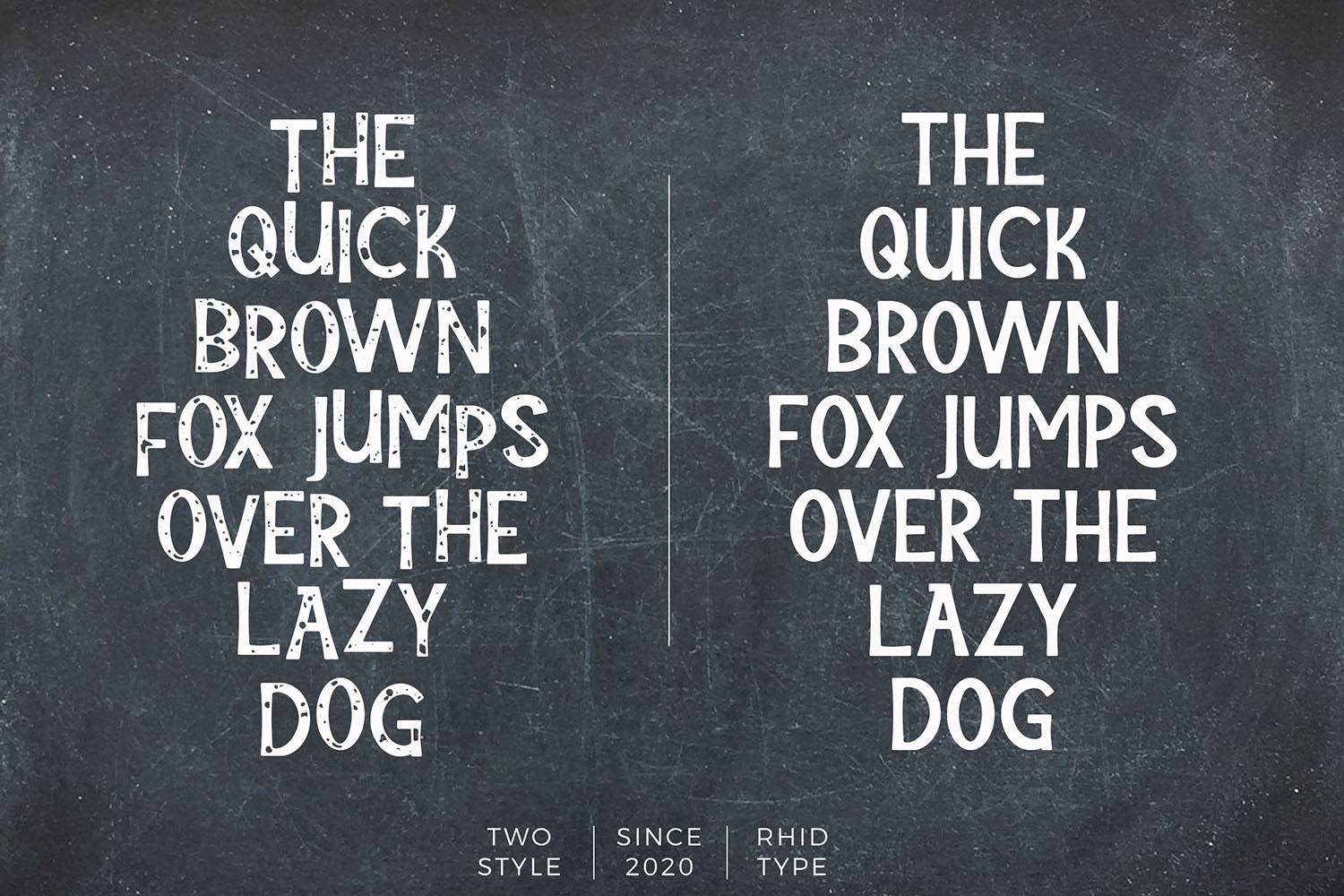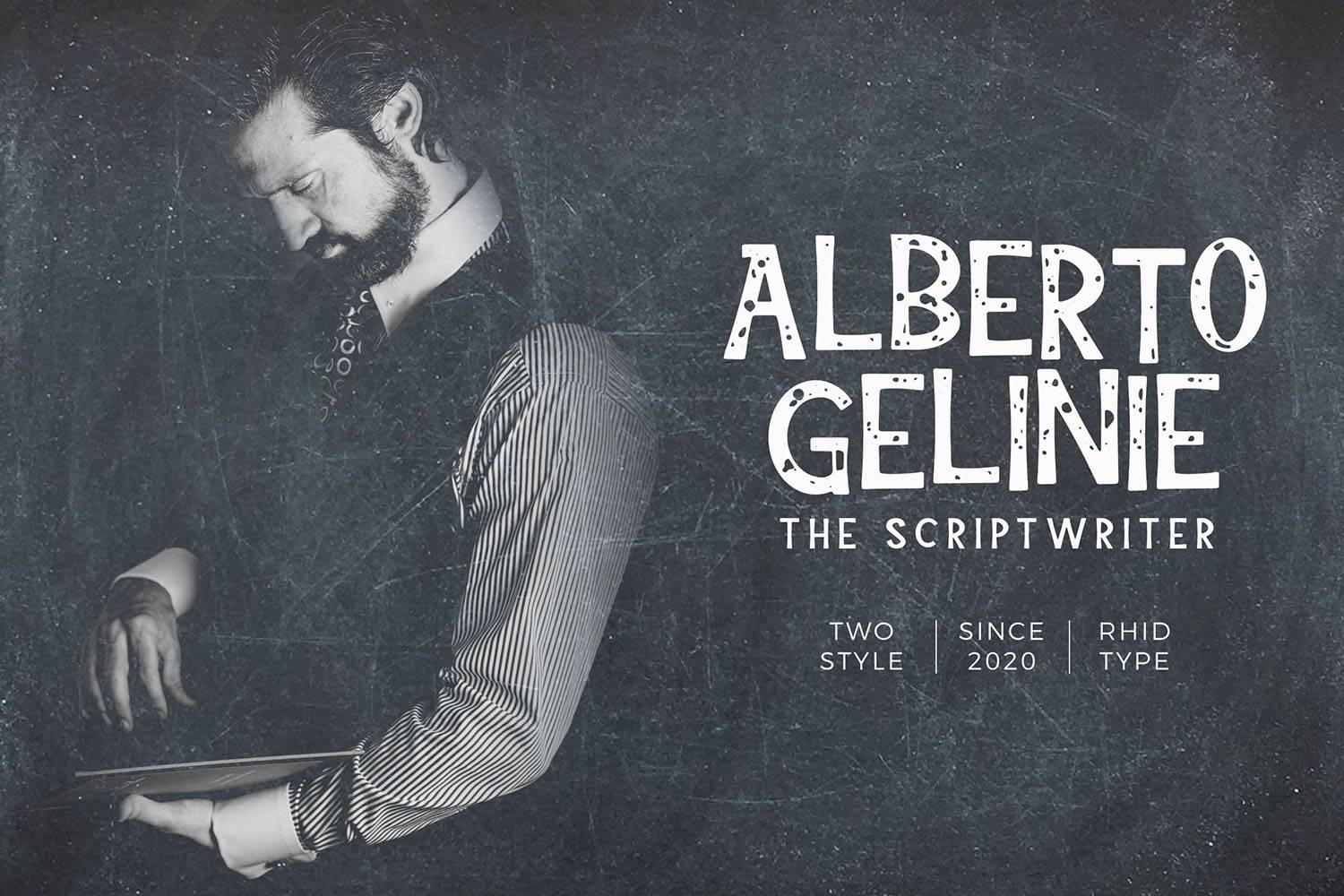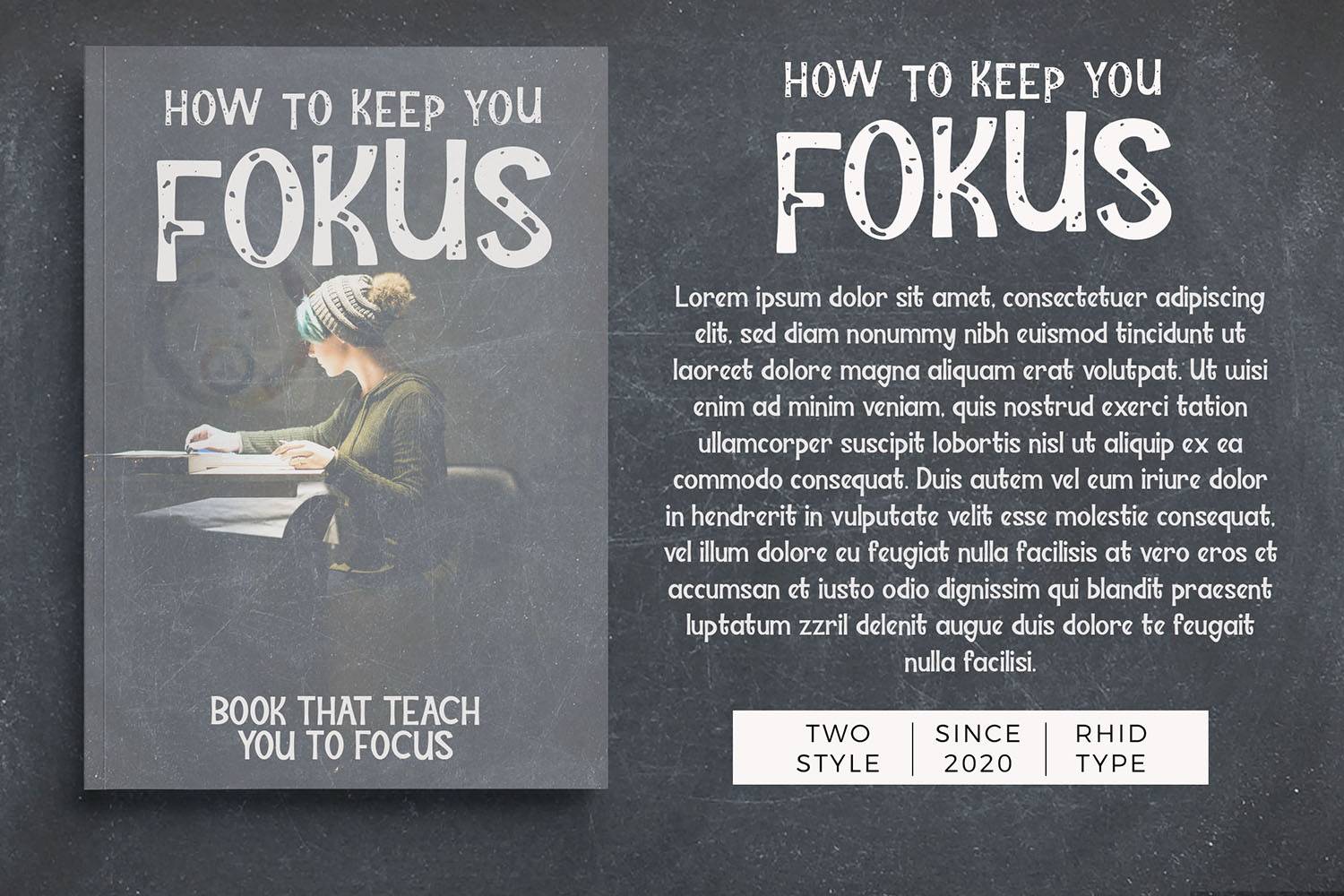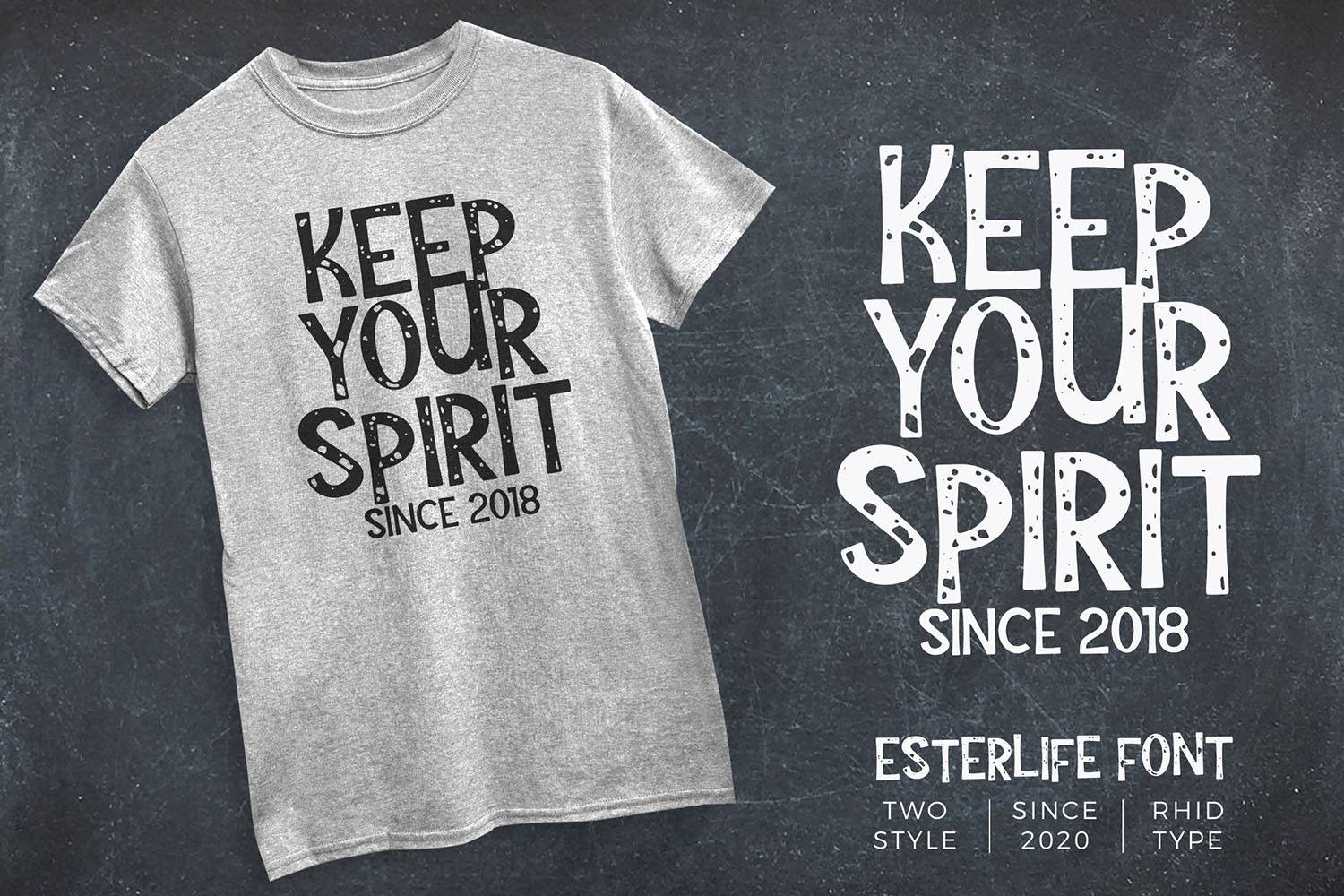
Esterlife is a quirky, playful sans serif font with a hand-drawn feel, featuring irregular shapes and fun polka-dot textures within the strokes. Its tall, narrow letterforms with moderate contrast and uneven lines give it a casual, energetic personality perfect for creative projects, children’s designs, and informal branding. This distinctive font works well in logos, posters, and headlines where a lively, unique character is needed to stand out.
Esterlife Font
About Esterlife Font